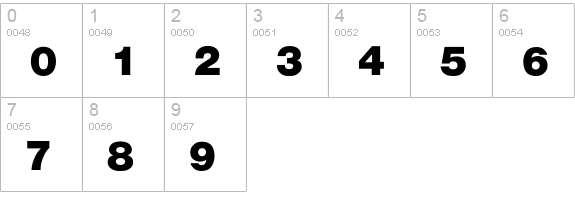
Olnova-Heavy is a heavy, high-impact variant in the Olnova typeface family \xE2\x80\x94 well suited to high-impact headlines, posters, and display advertising.
Olnova-Heavy is a bold and impactful typeface that exudes strength and modernity. With its thick and sturdy letterforms, this font is perfect for making a statement in headlines, titles, and other prominent text elements. The sharp angles and clean lines give Olnova-Heavy a sleek and contemporary look that is sure to catch the eye. What sets Olnova-Heavy apart is not just its striking design, but also the fact that it is available for free download. That's right, you can get your hands on this impressive font without spending a dime! Simply head over to FontsMarket.com and start using Olnova-Heavy in your projects today. Whether you're working on posters, logos, websites, or any other design project, Olnova-Heavy is a versatile and powerful font that will help you make a bold statement. Download it now and take your designs to the next level!